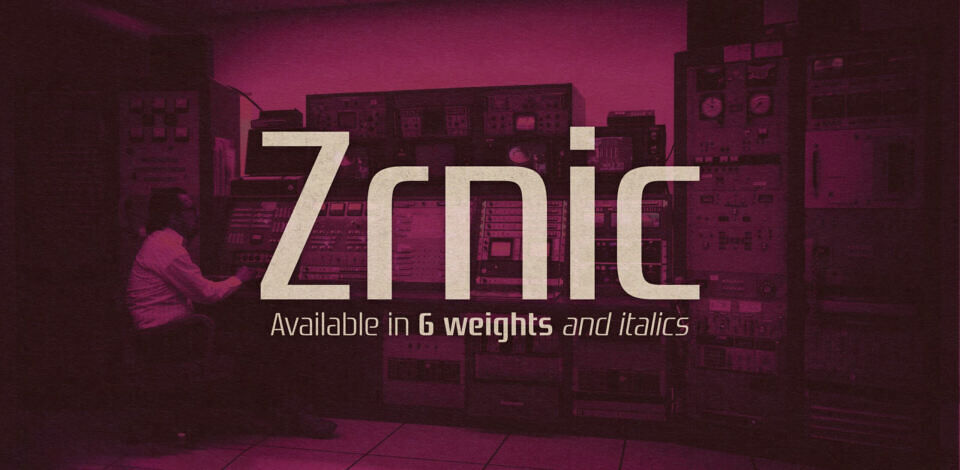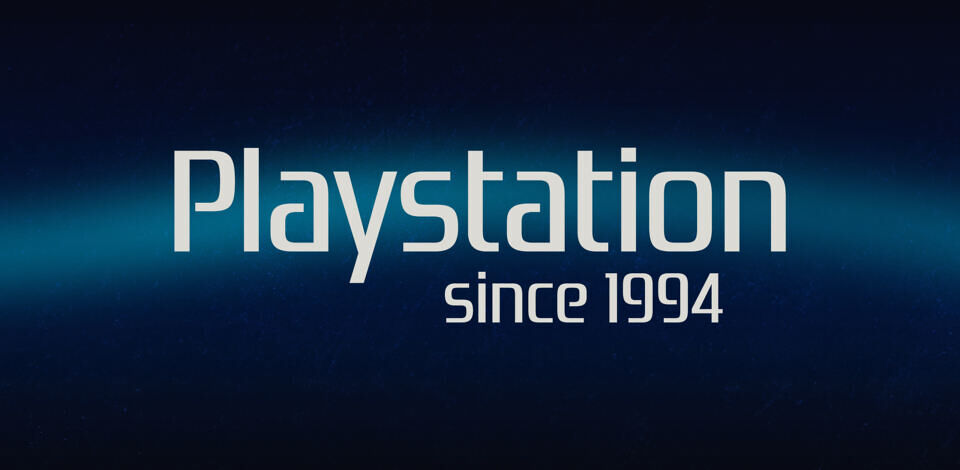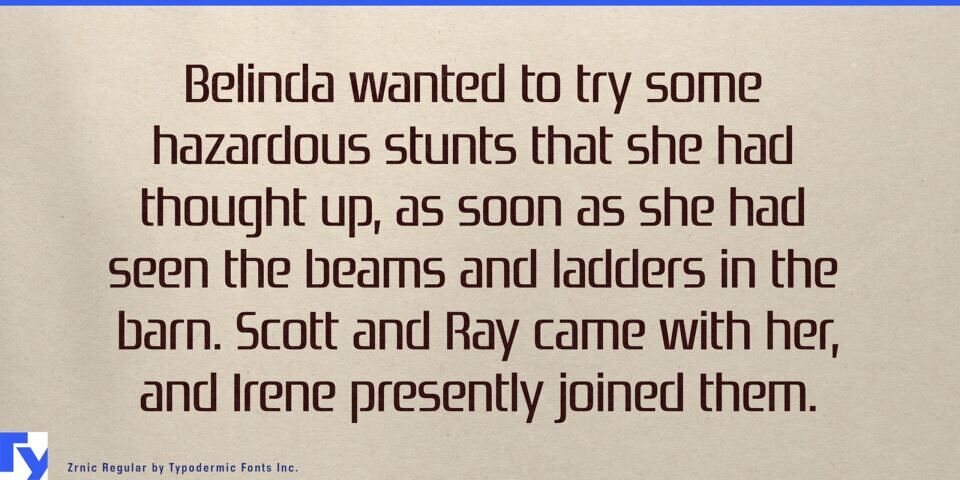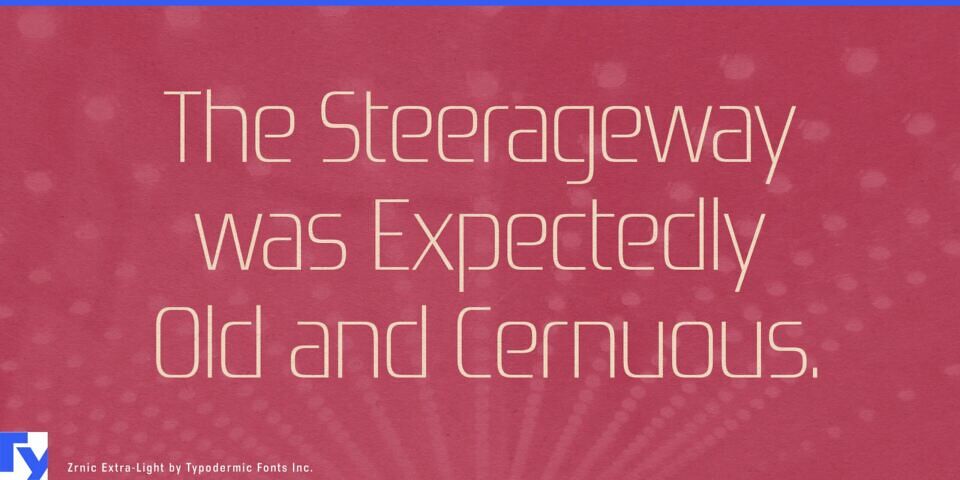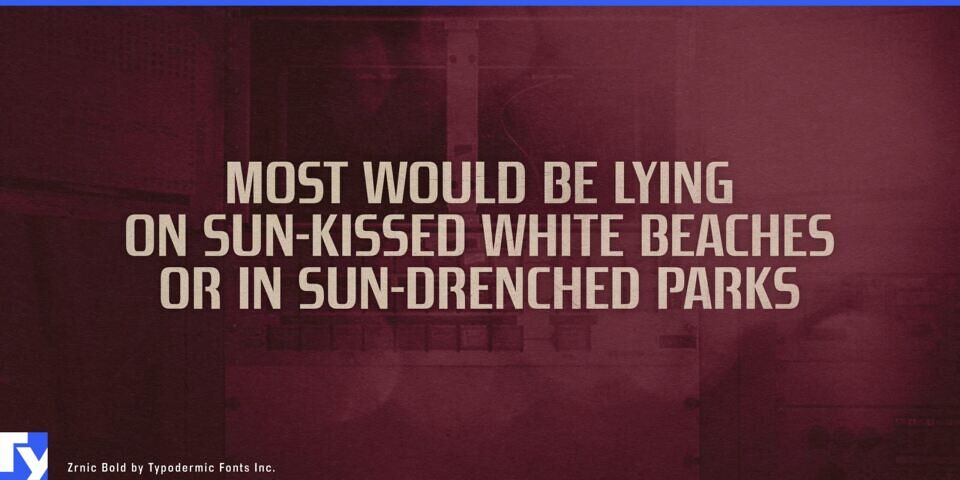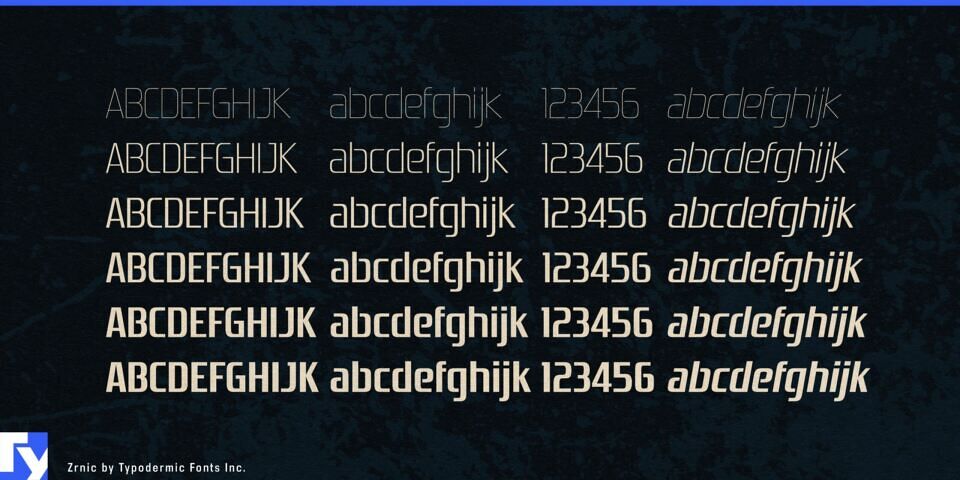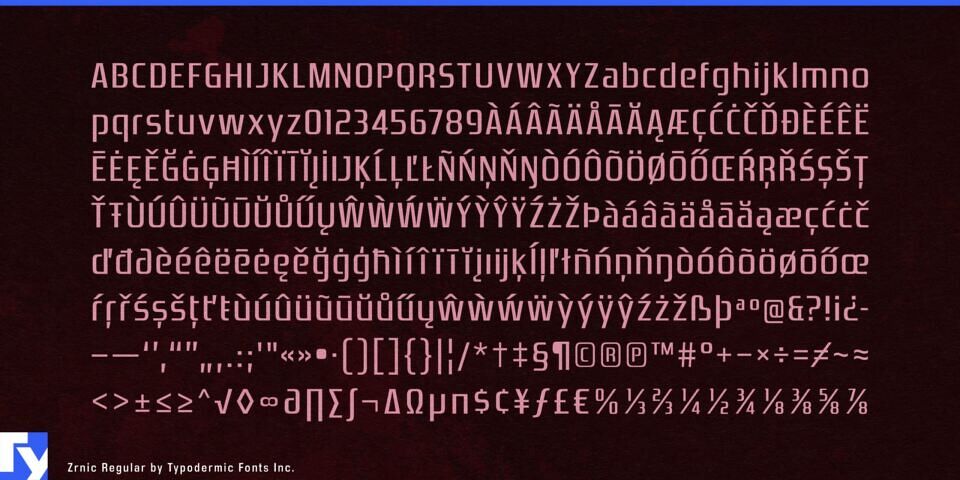
Zrnic Font
Zrnic is a boxy, futuristic typeface. Boxy, plastic letterforms are interspersed with gaps to reduce overall weight, lending Zrnic a stark industrial look. This is the correct tool to use when you want to convey the notion of technological precision. Zrnic comes in six weights and italics.
Zrnic also bears a resemblance to the font used in the original PlayStation logo, making it a great choice for projects aiming to capture that retro-console aesthetic.